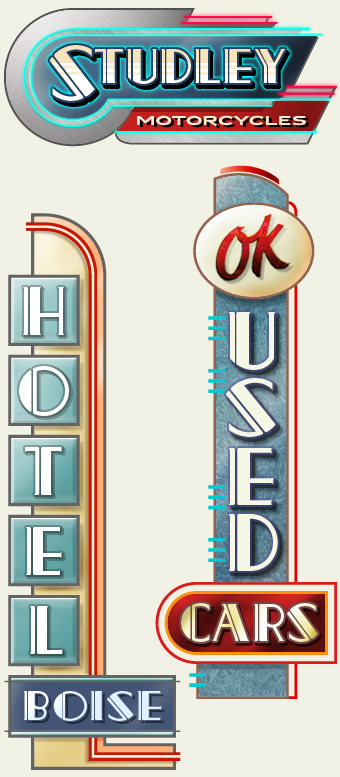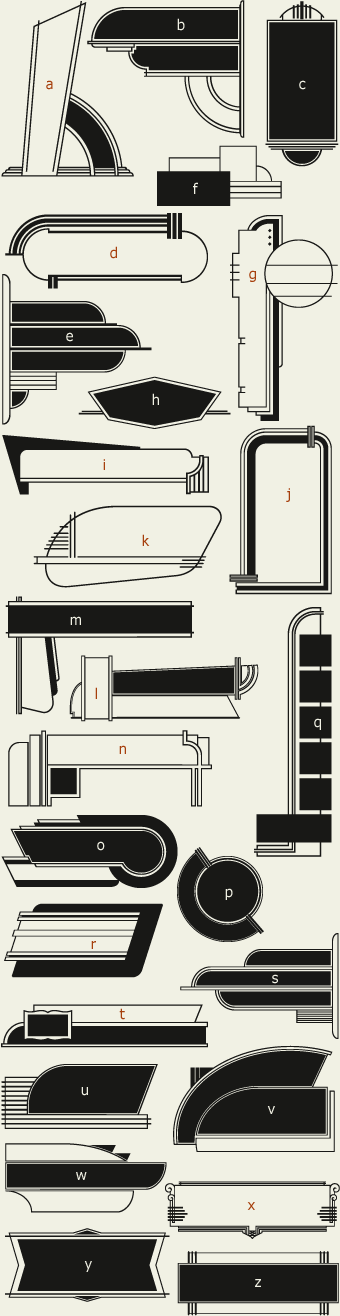
20 SIX PANELS ( D ) WITH PALACE BOLD
WITH BECKER HEXAGON AND CAMEO
| LHF 20 Six Panelsby Noel Weber & John Davis |
Don't let the name fool you. This unique font actually contains 36 different art deco sign panels with variations on the lowercase keys. Also includes 2 bonus panels on < and > keys. These unusual architectural panels from award winning sign artist Noel Weber will prove especially useful to those involved in signs or architecture.
Pair